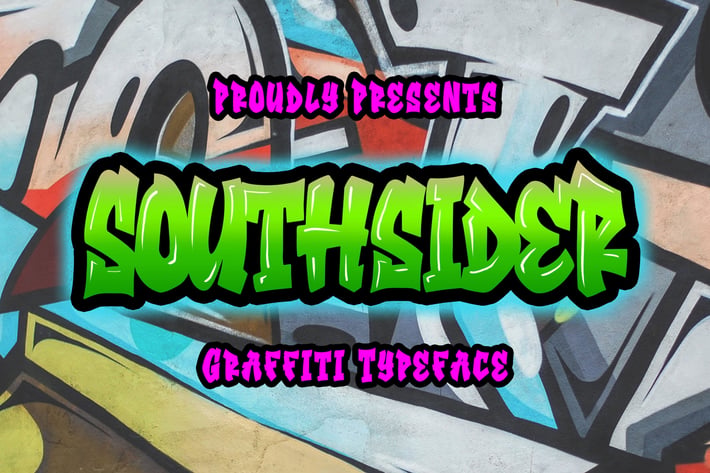
Southsider - Graffiti Typeface
Introducing of our new product the name is Southsider Graffiti Font. Southsider inspired by graffiti style with a fun theme very good for graffity poster, Hip Hop music, kids poster, flyer, childrenbook, cartoon, comic etc